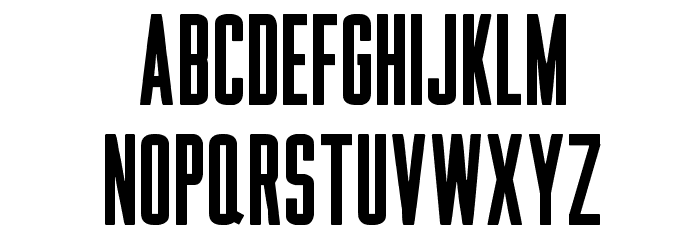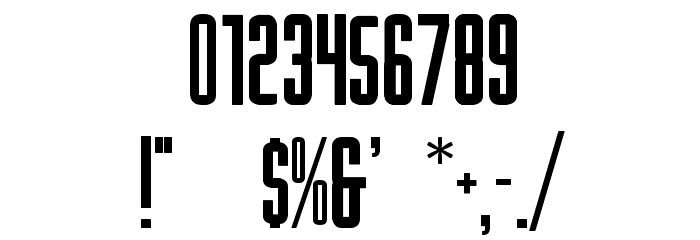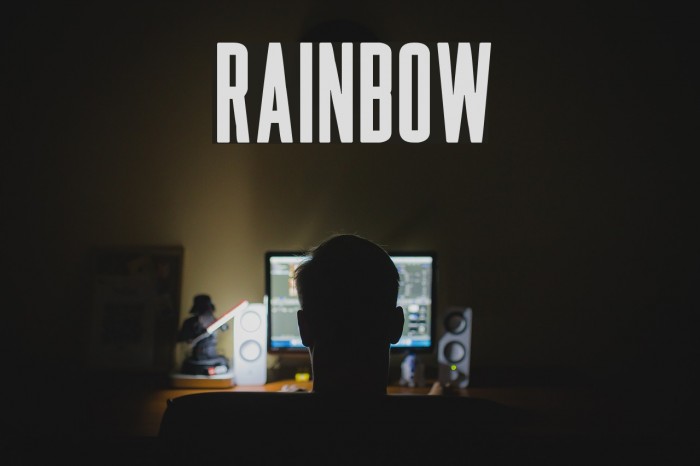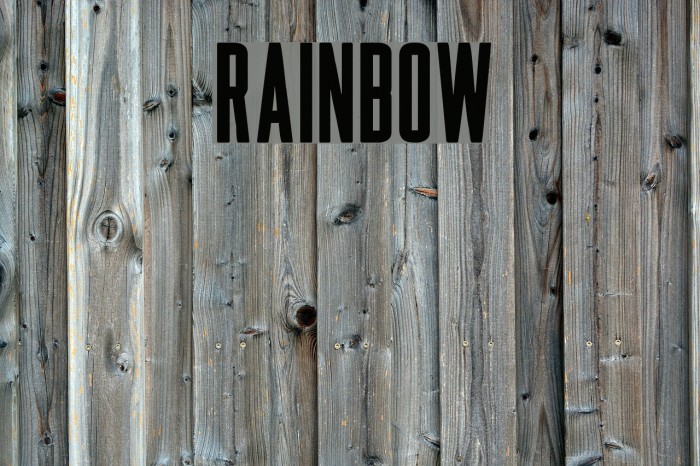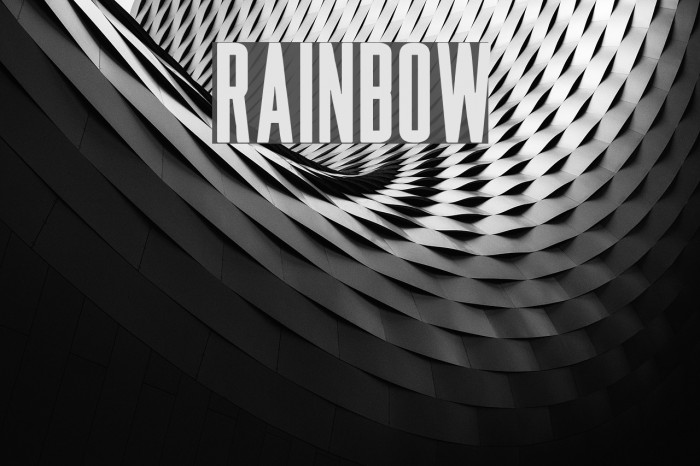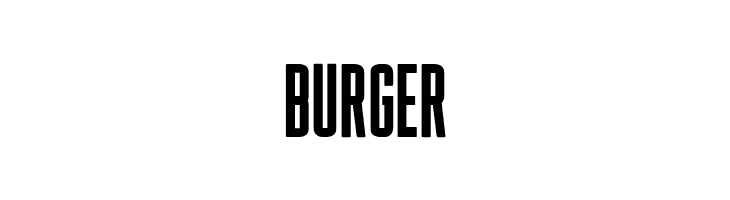
Rainbow Font
This font features a bold and impactful design, characterized by its tall and narrow letterforms. The uppercase letters are uniform in height, creating a strong and cohesive visual presence. The numerals and special characters maintain the same boldness, ensuring consistency across all elements. The font's vertical emphasis and clean lines make it suitable for attention-grabbing headlines and titles. Its modern aesthetic is enhanced by the lack of serifs, giving it a sleek and contemporary feel. The spacing between characters is tight, which contributes to its compact and efficient use of space.
A bold, tall, and narrow sans-serif font with a modern and impactful style.
- Proposed Projects: Ideal for posters, headlines, branding, and any design requiring a strong visual impact.